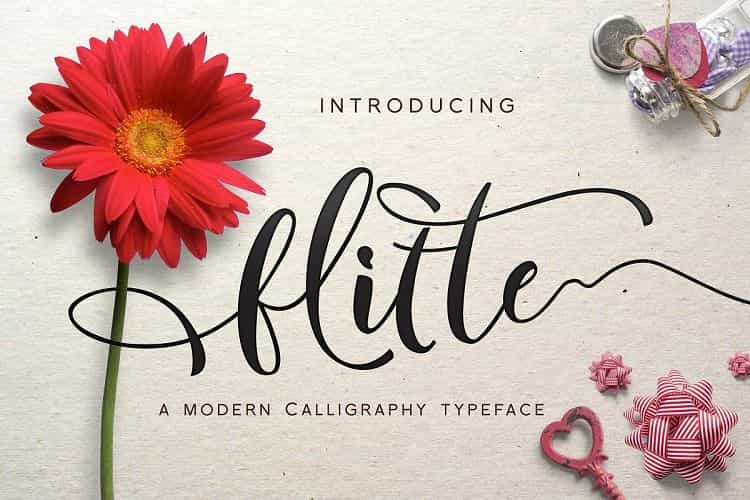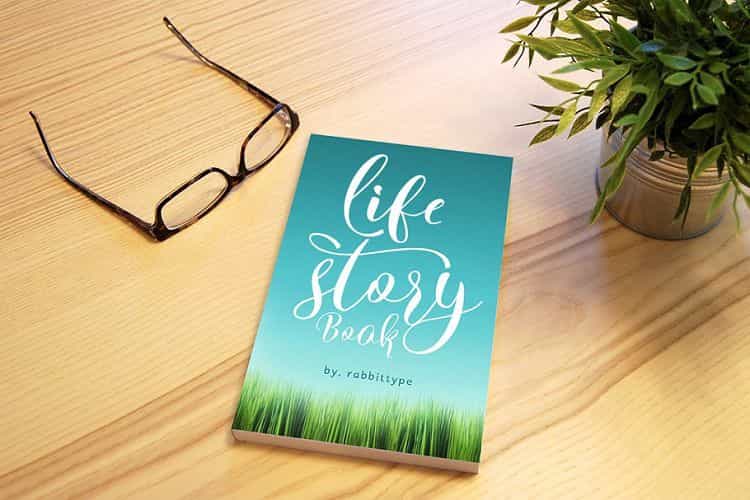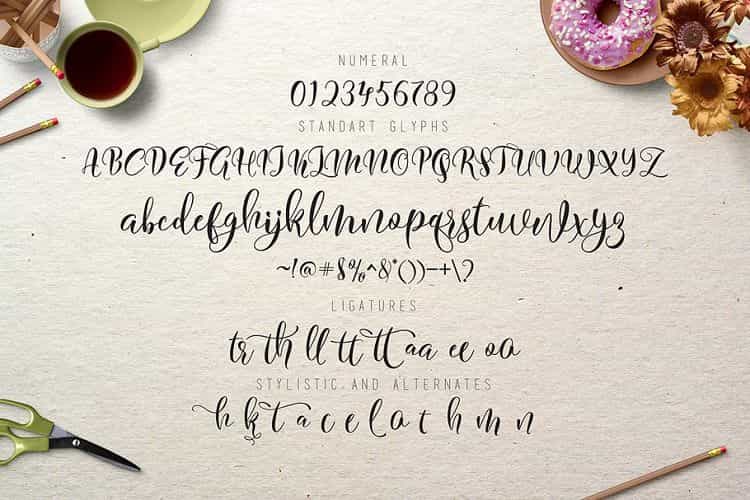
Flitte Script, a beautiful Script, It suitable for wedding invitation, greeting cards, T-Shirt, Logo or any design that you create.comes with a complete set of standard characters, Alternates, stylistic Alternates, Punctuation & international glyphs